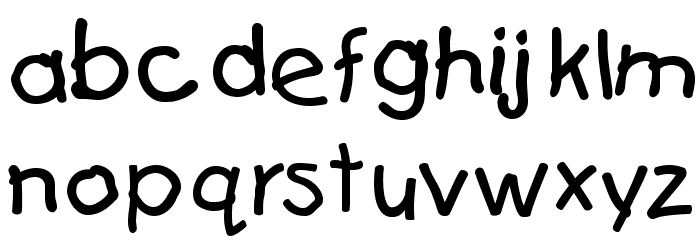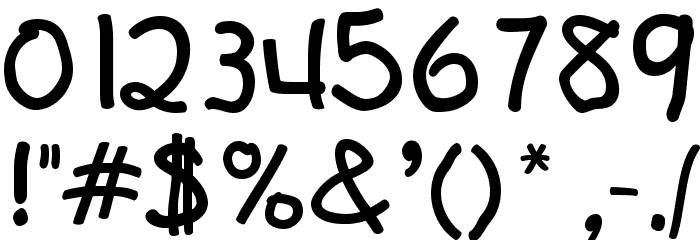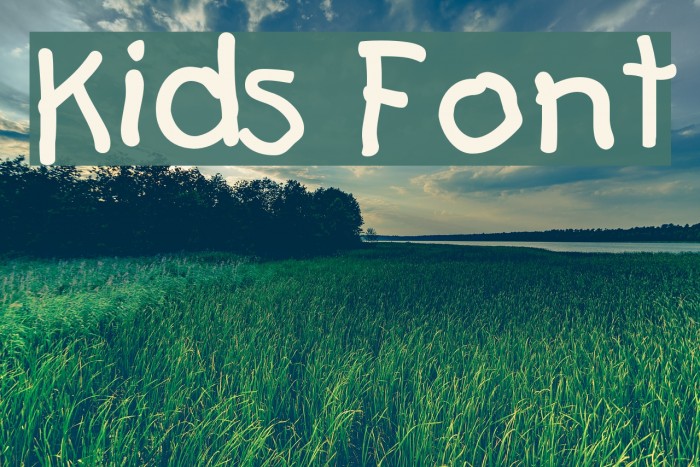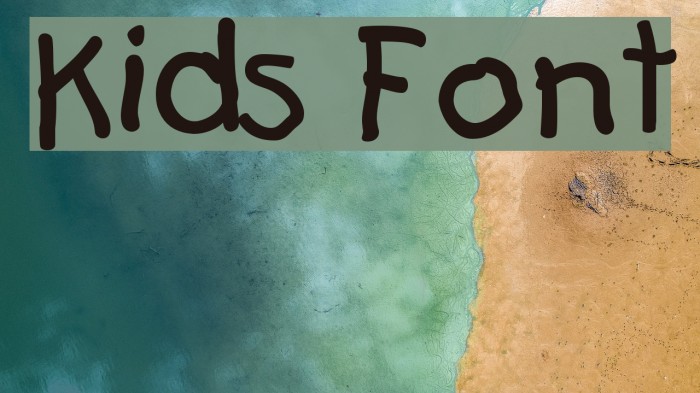
Kids Font
This playful and whimsical font features a handwritten style that exudes a sense of fun and creativity. The characters are rounded and slightly irregular, giving them a childlike charm. The uppercase and lowercase letters maintain a consistent flow, while the numbers and special characters complement the overall design. The strokes are bold and uniform, ensuring readability while maintaining a casual and informal appearance. This font is perfect for projects that require a touch of personality and warmth, making it ideal for children's books, educational materials, and playful branding.
A playful, handwritten font with a childlike charm and bold strokes.
- Proposed Projects: Children's books, educational materials, playful branding, greeting cards, and informal invitations.
- Overall Style: Playful
- Use Case: Headlines, Logos, Informal Text